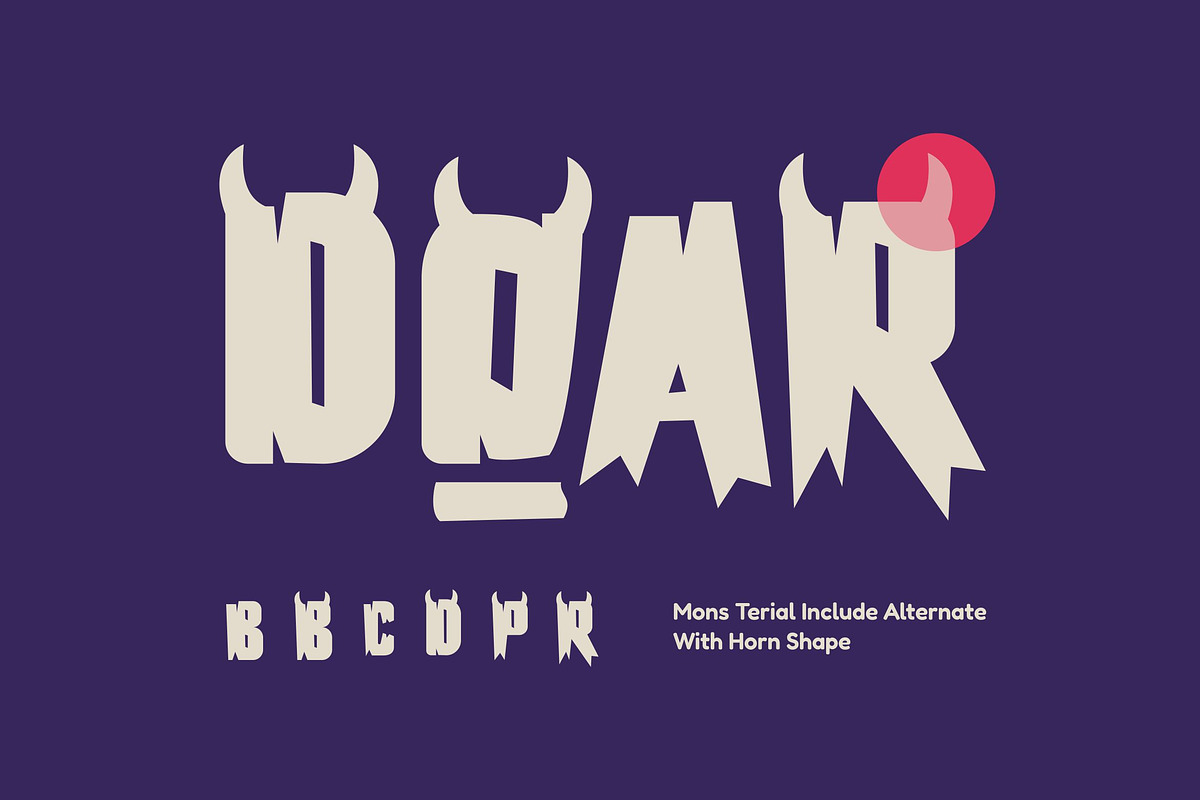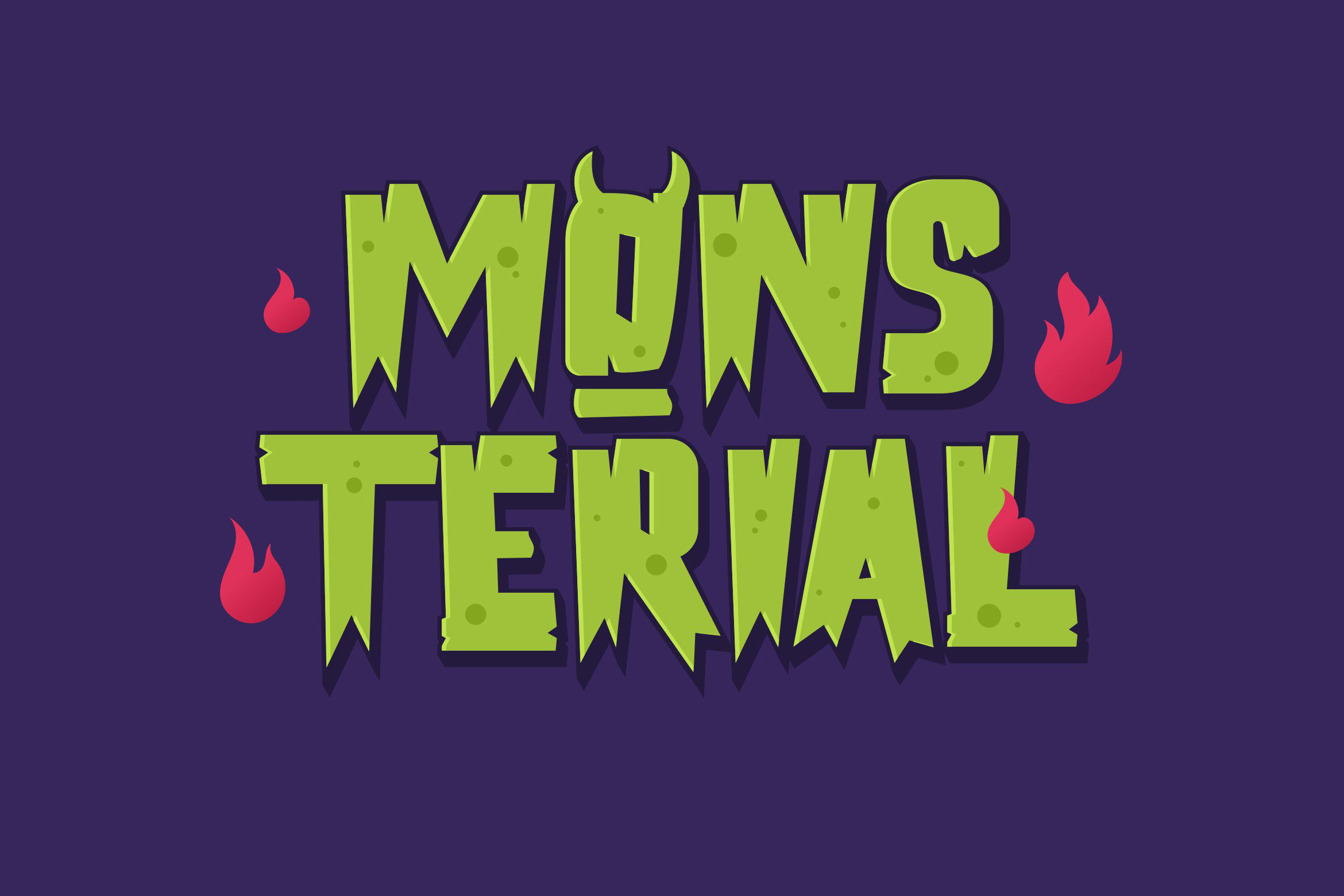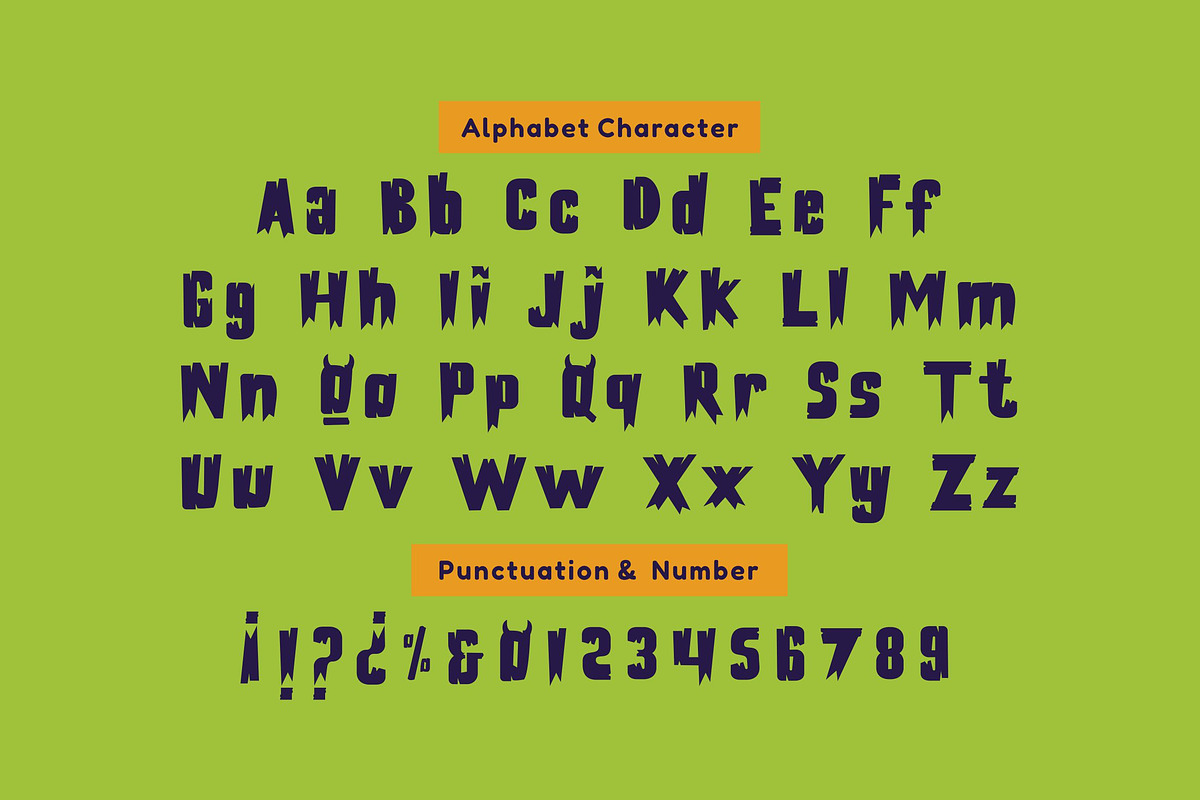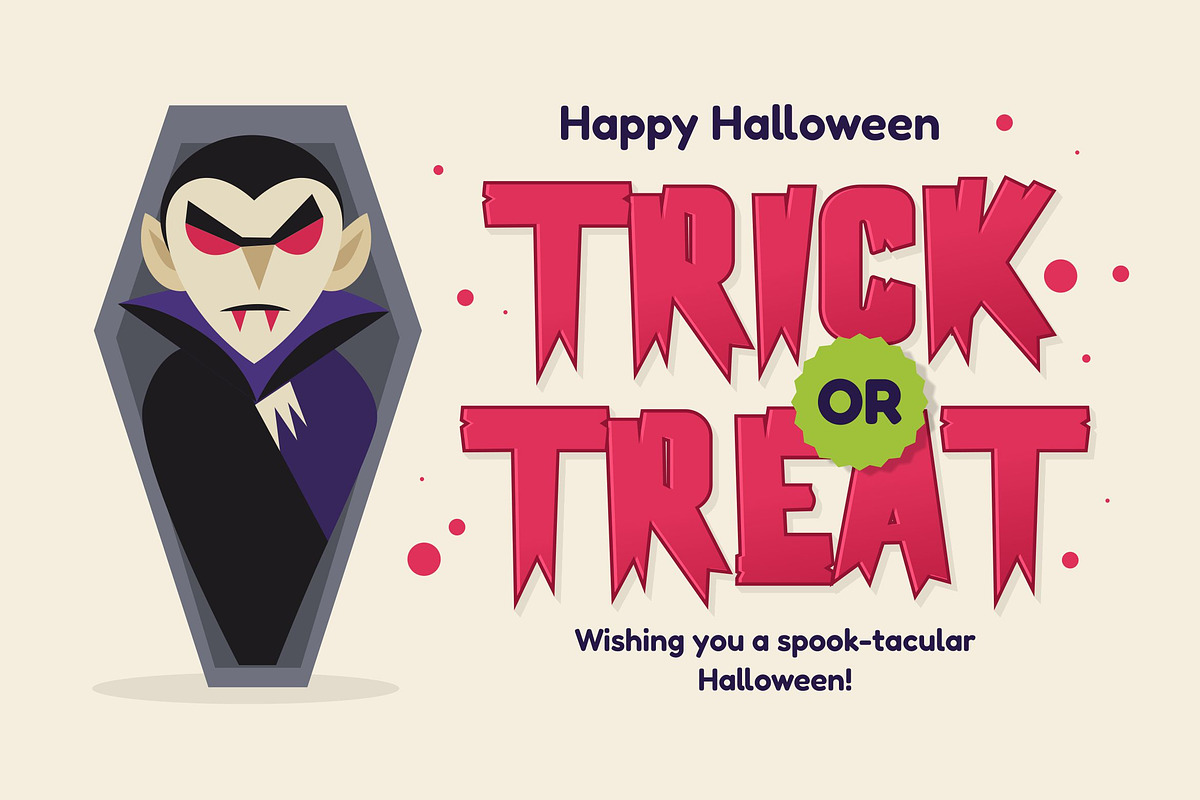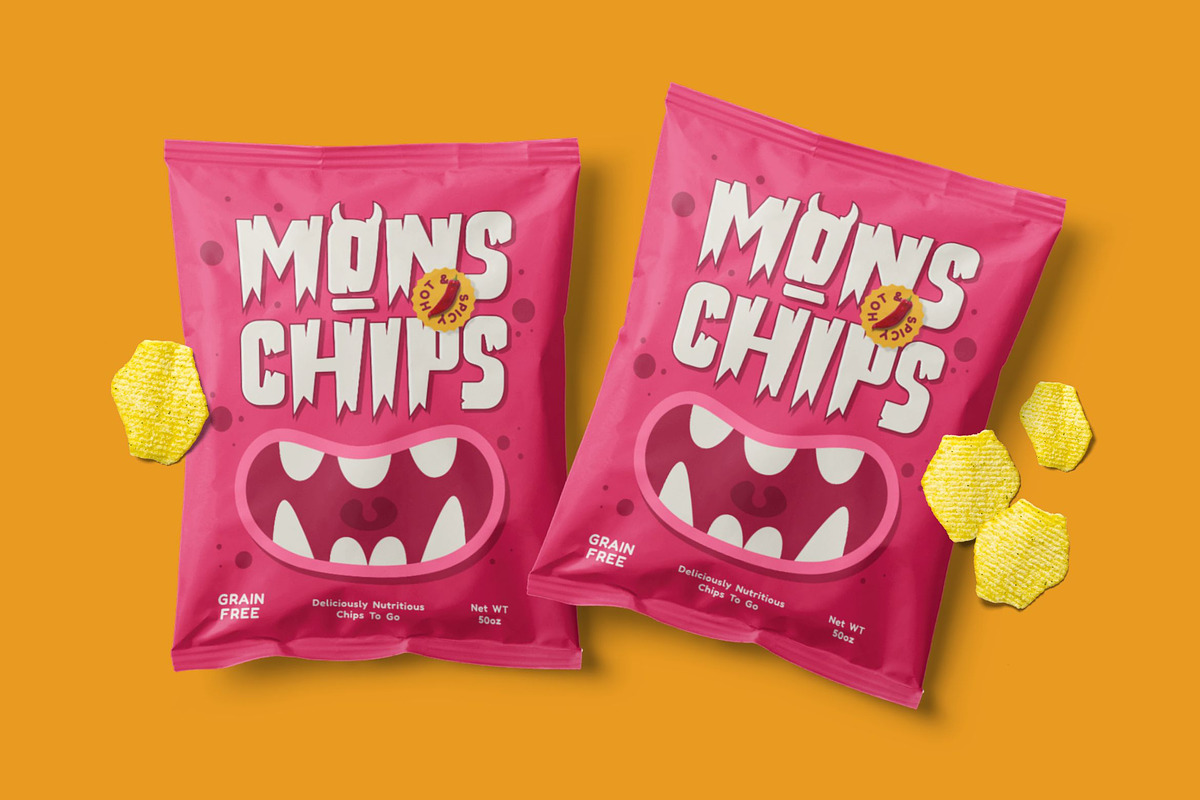
Mons Terial - Playful Monster Font
Unleash your inner monster with Mons Terial, a frightfully fun and playful display font! Perfect for all your Halloween and spooky themed projects, this font is designed to jump off the page with its bold personality and jagged, creature like edges.
Each letter in Mons Terial has been crafted with sharp, uneven lines, giving it a hand cut, monstrous feel that's more fun than fearsome. Its chunky, blocky style makes it incredibly eye catching and perfect for headlines, logos, and poster. Whether you're designing invitations for a spook tacular Halloween party, creating quirky branding for a horror themed event, Mons Terial has the character to bring your ideas to life.
Get ready to scare up some fun and add a touch of playful horror to your designs with Mons Terial!